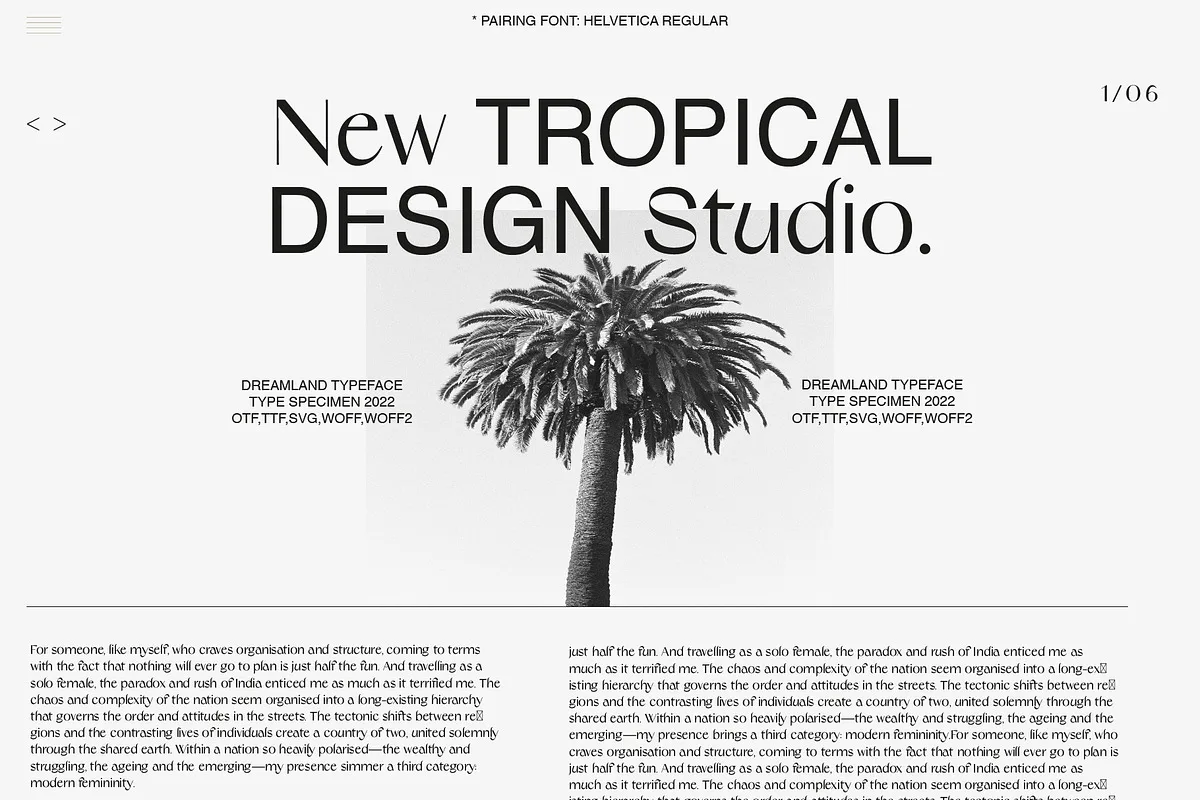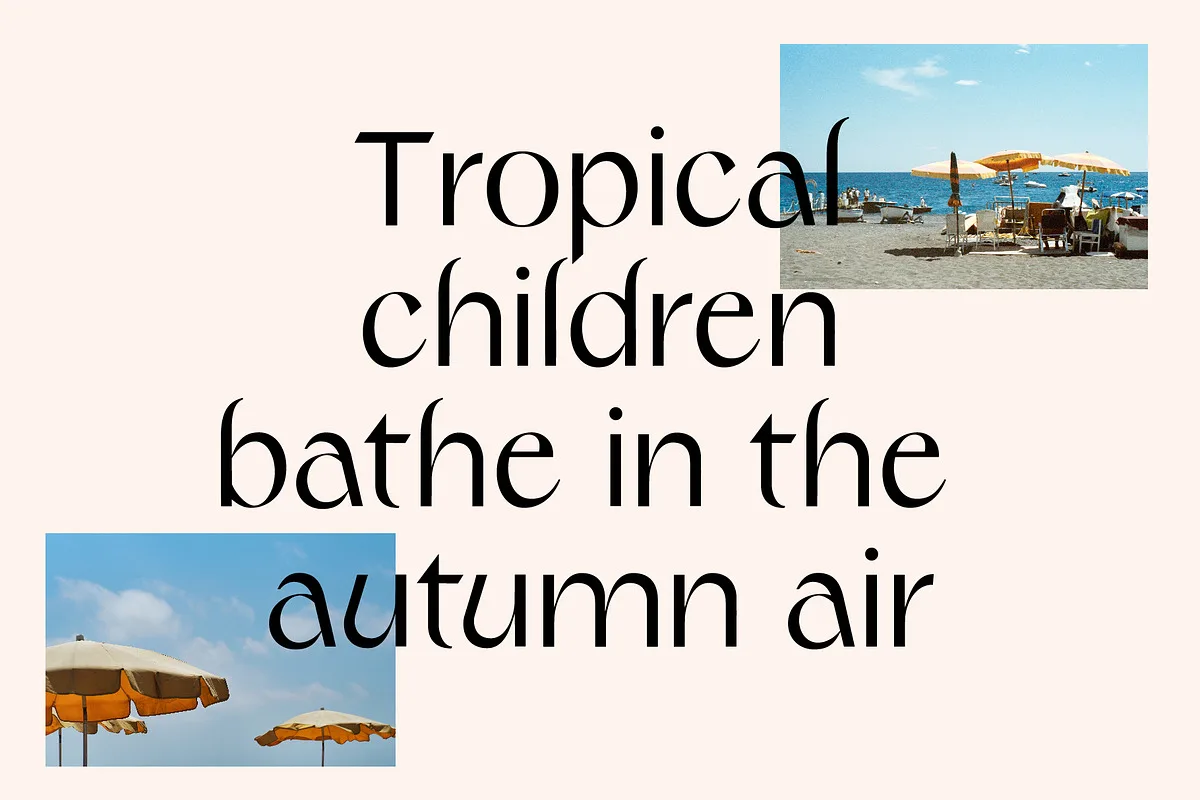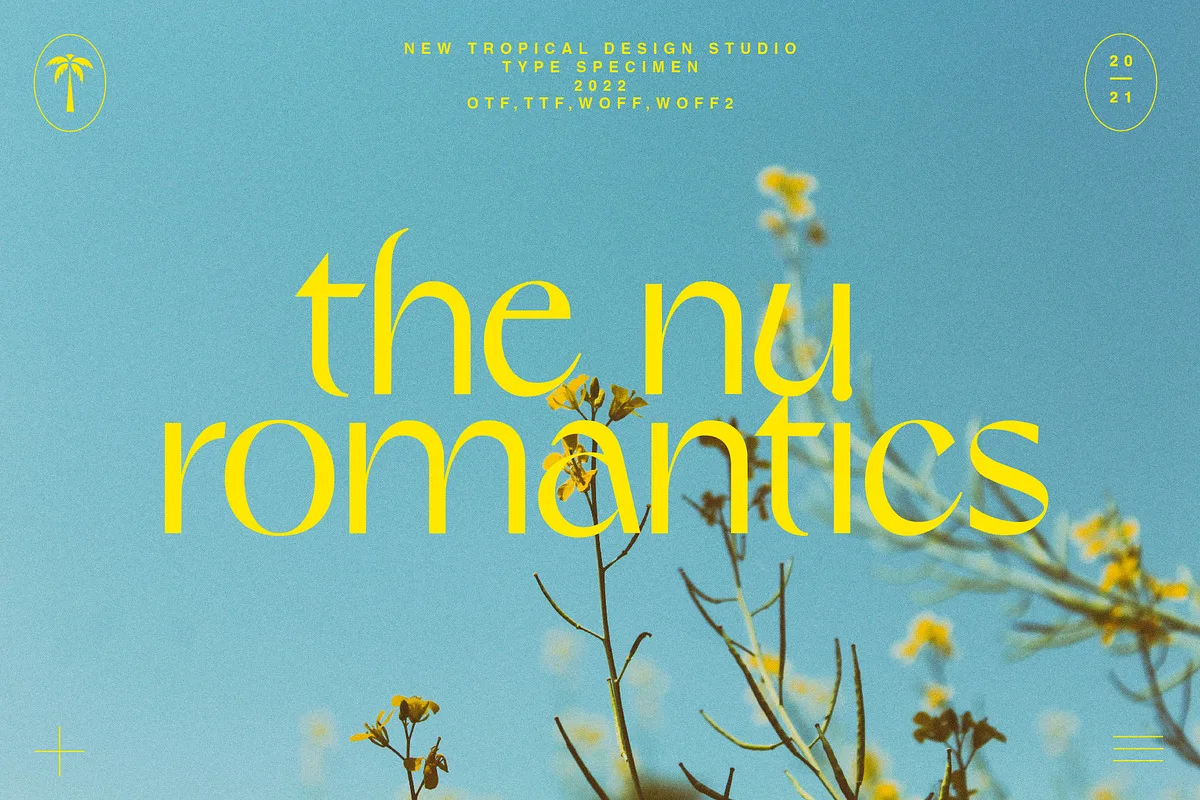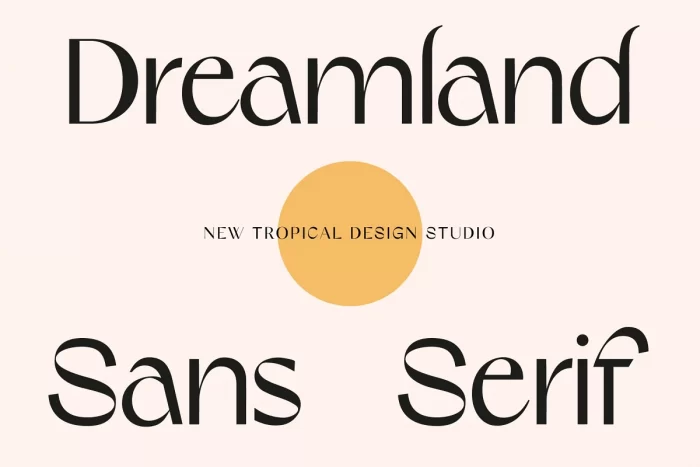
Dreamland is eclectic font that takes references from multiple styles and eras to create a unique modern typeface. The modern high contrast sans has hints of nostalgia mixed with avant-garde curves to create a memorable addition to your font collection.